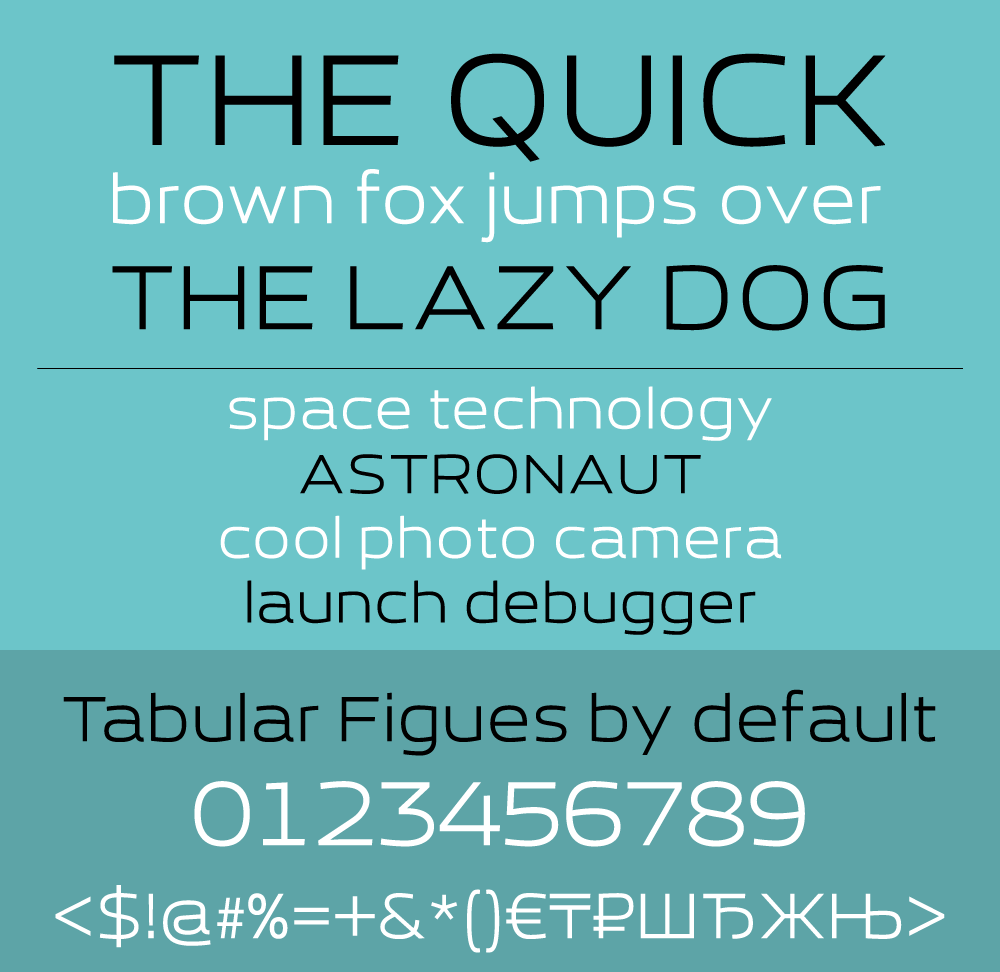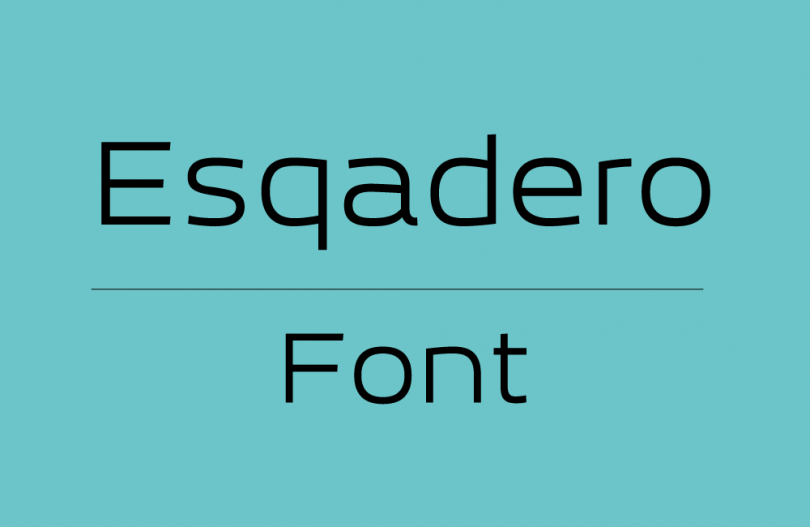
Esqadero FF CY 4F-Regular is an exceptional sans-serif font created by Sergiy Tkachenko and can be good for websites, logos and other graphic designs. It’s semi-thin appearance make it more legible even in small size text and headings. Grab this font now and feel free to share it. Also don’t forget to subscribe to our YouTube Channel to get more amazing stuffs and useful information.